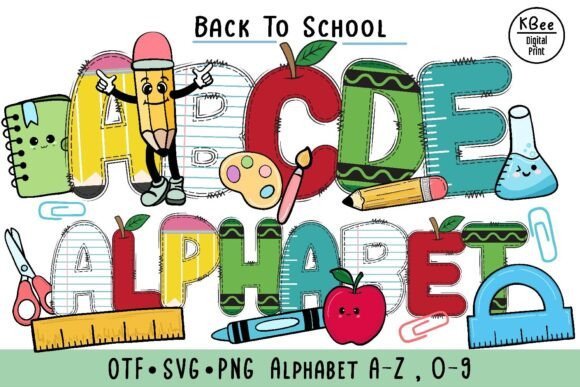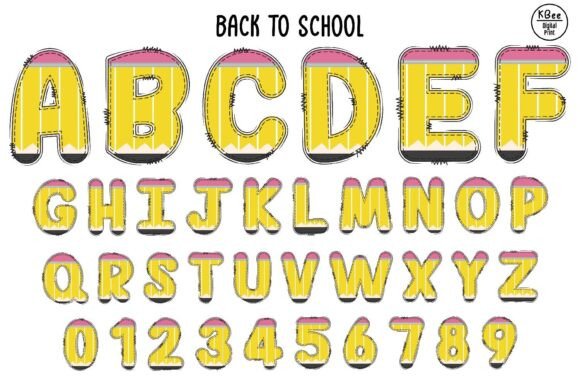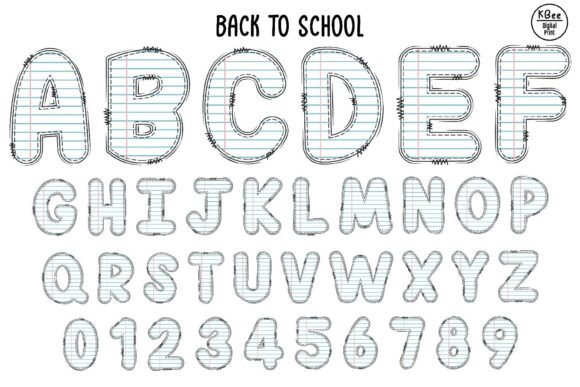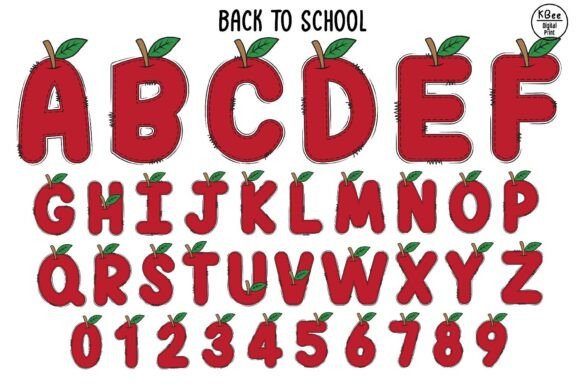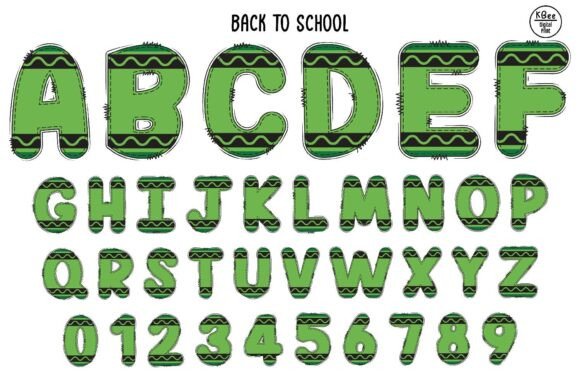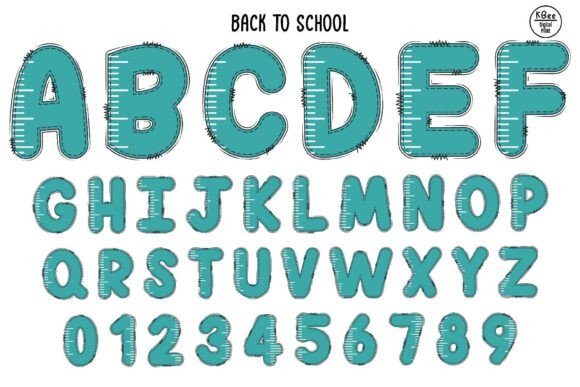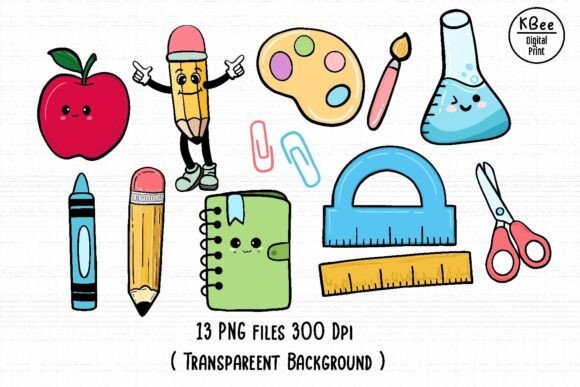
Getting Ready for a Fun-Filled School Year with the Perfect Font
As the summer days come to an end, designers are gearing up to create engaging projects that capture the excitement of the new school year. For those looking to add a playful touch to their designs, the Back to School Doodle Font is a treasure trove of creative possibilities.
This delightful font set is designed to bring joy and whimsy to your projects, whether you’re crafting greeting cards, invitations, or educational posters. With its colorful and doodle-like elements, the Back to School Doodle Font is a valuable asset for designers who want to add a personal touch to their work. Its compatibility with popular design software like PhotoShop, Illustrator, and Inkscape makes it a breeze to use, allowing you to focus on unleashing your creativity.
Back to School Doodle Font Key Features
- Font Style: A playful, handwritten font with a back to school theme, perfect for creating fun and engaging designs.
- Character Count: Contains over 200 unique characters, including uppercase and lowercase letters, numbers, and special symbols.
- Unique Characteristics: Includes doodle-style illustrations, such as pencils, notebooks, and apples, adding a touch of whimsy to your designs.
Back to School Doodle Font Review
As a designer, I was excited to dive into the “Back to School Doodle Font” and see what it had to offer. Here’s my honest review:
- Fun and playful design: The font’s doodle-like aesthetic is perfect for creating eye-catching and engaging designs, especially for educational materials or back-to-school promotions.
- High-quality illustrations: The font includes a range of cute and colorful illustrations, such as apples, pencils, and books, which can be used to add visual interest to your designs.
- Easy to use: The font is relatively easy to use, even for designers who are new to doodle-style fonts.
- Limited character set: The font’s character set is somewhat limited, which may make it difficult to use for longer blocks of text.
- Lack of customization options: While the font is easy to use, it’s not particularly customizable, which may limit its versatility.
- Not suitable for all designs: The font’s playful aesthetic may not be suitable for all types of designs, such as corporate or formal materials.
Overall, I think the “Back to School Doodle Font” is a great choice for designers who want to create fun and engaging educational materials or promotions. While it has some limitations, it’s a high-quality font that’s easy to use and can add a lot of visual interest to your designs.
Some common use cases for the Back to School Doodle Font include:
- Creating invitations and announcements for back to school events.
- Designing educational materials, such as worksheets and activity sheets.
- Adding a playful touch to presentations and reports.